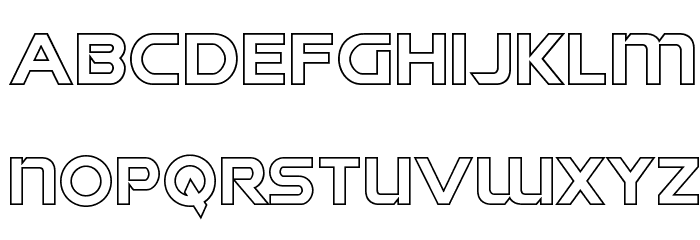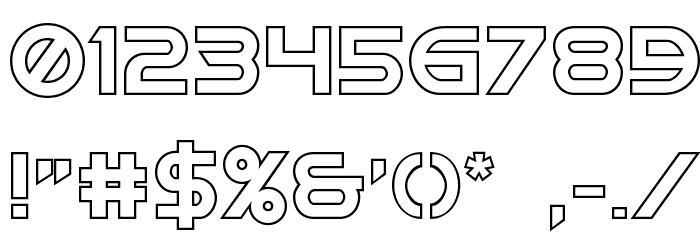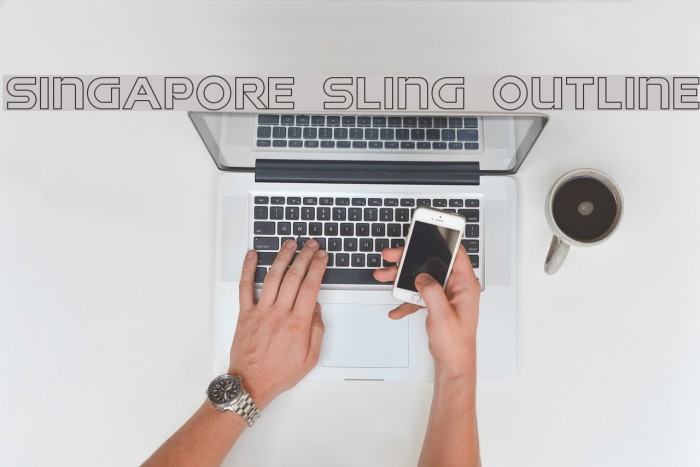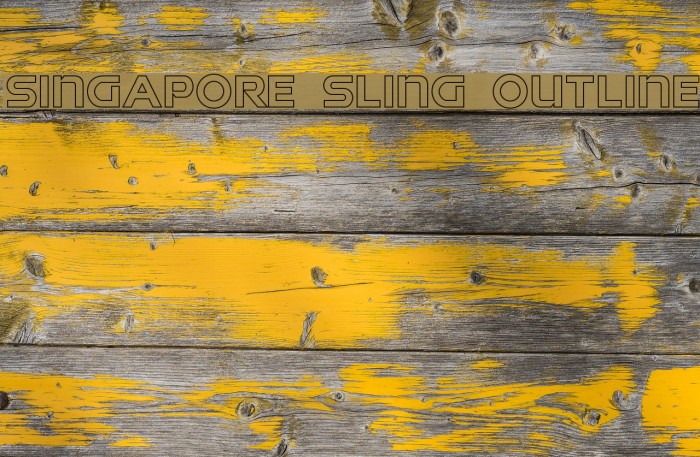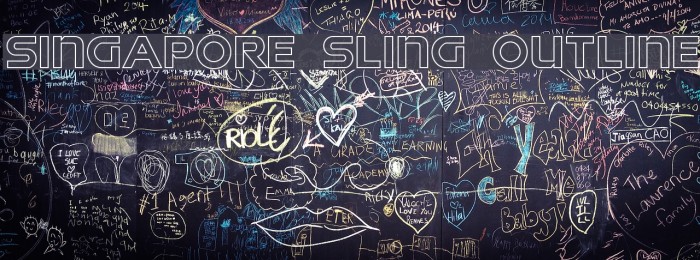
Singapore Sling Outline Font
This font features a bold, geometric outline style that emphasizes clean lines and sharp angles. The characters are constructed with a consistent stroke width, creating a uniform and cohesive appearance. The uppercase and lowercase letters maintain a similar structure, enhancing readability while adding a modern, futuristic flair. The numerals and special characters follow the same design principles, ensuring a harmonious look across all glyphs. This font's outline design makes it stand out, offering a unique aesthetic that is both eye-catching and versatile.
A bold, geometric outline font with sharp angles and consistent stroke width.
- Proposed Projects: Ideal for branding, posters, headlines, and any project requiring a modern, standout typeface.